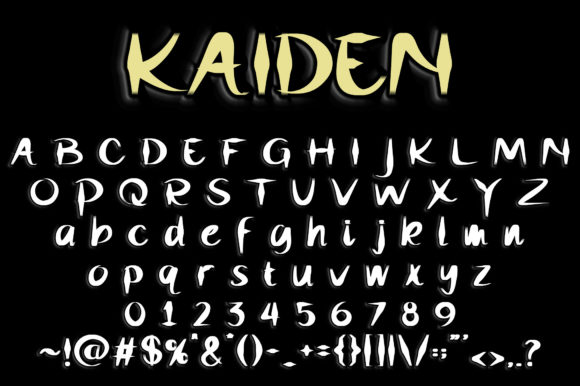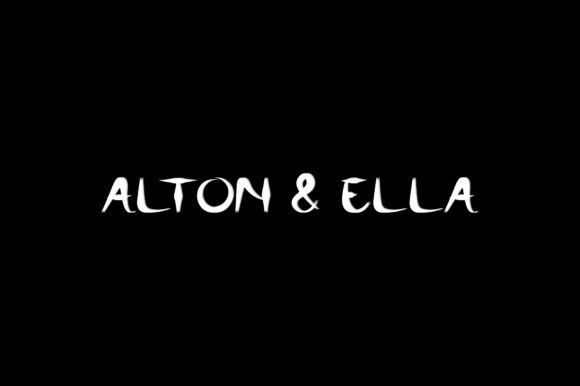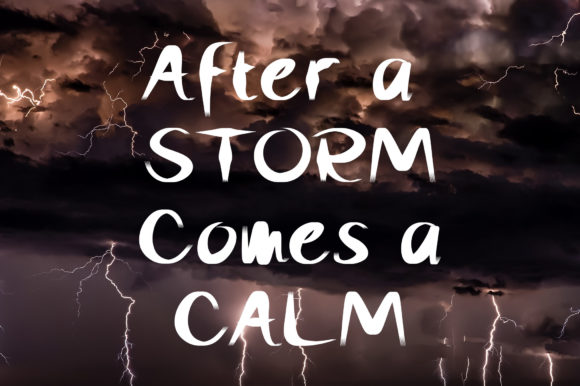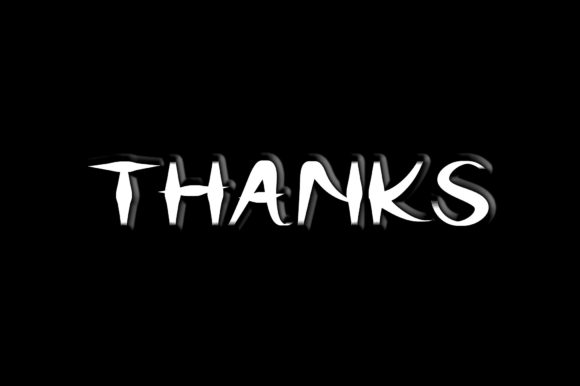
Introduction to Kaiden Font
Kaiden is a playful and quirky handwritten font that looks neat and natural.
It is perfectly suitable for projects like product packaging, name tags, branding, social media posts, quotes, wallpapers, and more .
Key Features of Kaiden Font
Why Choose Kaiden Font?
Kaiden Font offers exceptional quality and versatility, making it a valuable addition to your design toolkit. Whether you’re creating for personal projects or commercial use, Kaiden Font delivers professional results.